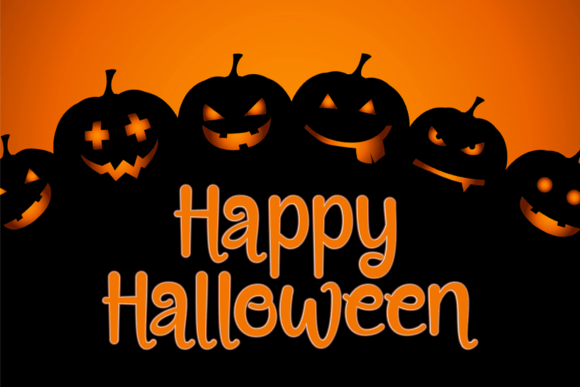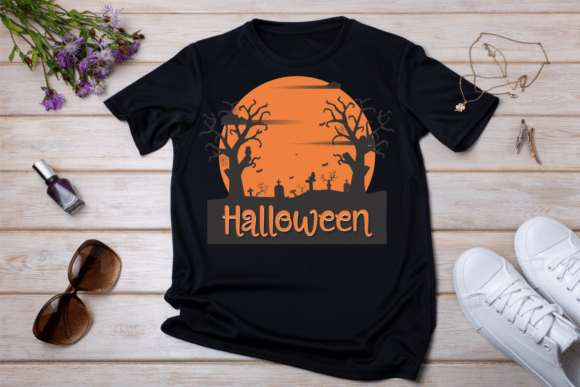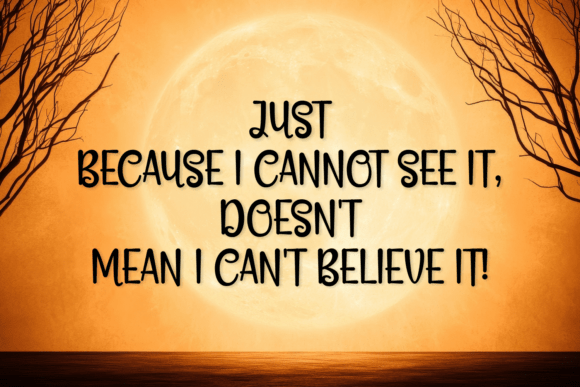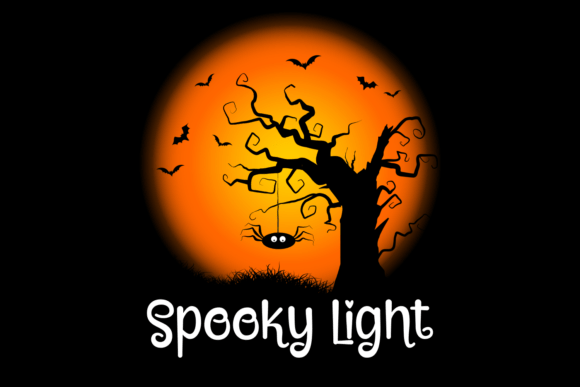
Introduction to Moon Shadow Font
Have you ever found yourself lost in the enchanting world of typography, searching for that perfect design element to elevate your creative project? I know I have. It was on a crisp autumn evening, surrounded by twinkling candles and the soft glow of a full moon, that I stumbled upon the mesmerizing Moon Shadow Font. This captivating handwritten font is a true gem, expertly weaving together the mystique of Halloween and the allure of October nights, creating a design that’s both eerie and enchanting.
As a designer, you understand the value of having a high-quality design resource at your fingertips. The Moon Shadow Font is just that – a versatile and free download that can add a touch of sophistication to your next creative project. With its transparent background and elegant script, this font is perfect for anyone looking to create a unique and captivating visual identity.
Key Features of Moon Shadow Font
- Unique, elegant design with a transparent background for versatility
- Perfect for use in logos, branding, and other design elements
- Supports various languages, making it a great resource for international projects
- Easy to customize and manipulate for a unique look in your design project
Honest Review: Moon Shadow Font
As a designer, I’m always on the lookout for high-quality design resources that can elevate my creative projects. Recently, I had the chance to try out the Moon Shadow Font, and I’m excited to share my honest review.
What works well: ✨ The Moon Shadow Font has a unique and elegant design that’s perfect for adding a touch of sophistication to your projects. The transparent background makes it easy to layer with other design elements, and the font is incredibly versatile – it works well for both print and digital designs.
- Unique Design: The Moon Shadow Font has a distinctive look that sets it apart from other fonts in its category.
- Transparent Background: This feature makes it easy to use the font in a variety of design scenarios.
Limitations: ⚠️ While the Moon Shadow Font is an excellent addition to any designer’s toolkit, it’s not without its limitations. The font can be a bit challenging to read in smaller sizes, and it may not be the best choice for projects that require a more playful or casual tone.
Overall impression: I’m thoroughly impressed with the Moon Shadow Font, and I would highly recommend it to any designer looking for a high-quality, versatile font for their creative projects.
Tips for Getting the Most Out of Moon Shadow Font
For the best results, use the Moon Shadow Font on a transparent background to create a seamless look. You can also experiment with different font sizes, colors, and styles to create a unique design. Additionally, consider pairing the Moon Shadow Font with other high-quality design resources to create a cohesive look.
The Moon Shadow Font is a versatile design resource that can be used in a variety of creative projects, including typography-based designs, logo designs, and marketing materials. It’s a great choice for designers looking for a high-quality, free download font to use in their designs.
Alternatives to Moon Shadow Font
Nimbus Sans
Nimbus Sans is a high-quality sans-serif font suitable for various design projects, including digital and print materials. It features a transparent background and clean lines, making it an ideal choice for creative projects that require a modern look. Nimbus Sans is available for free download and is a great alternative to Moon Shadow Font for projects that require a more minimalist approach.
Comparison to Moon Shadow Font: Nimbus Sans has a more modern feel and a larger character set, making it a better choice for digital projects. However, it lacks the elegance and sophistication of Moon Shadow Font.